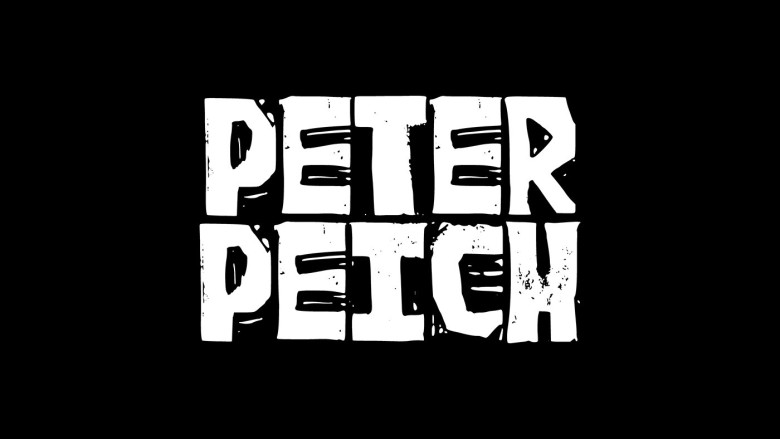
Peich Typeface
Introducing Peich – rough and aged, but very simple imprinted font! Peich was designed and shares by Robert Young, DGA. Peich typeface is a hand crafted linocut sans-serif typeface in honor to Paul Peter Piech the print artist. A free font to download made in Montreal. This font is ideal for creating vintage logos, badges, labels, typographic images, greetings cards, and different apparel design.